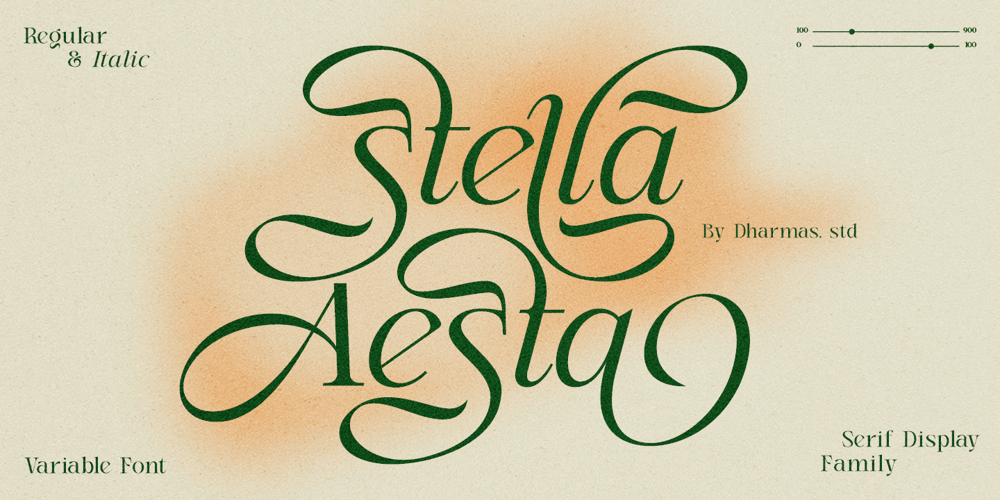
Dh Stella Aesta Font Family was designed by Ahmad Jamaludin and published by Ahmad Jamaludin. Dh Stella Aesta contains 10 styles and family package options. Introducing Stella Aesta – Butterfly Swash Display FamilyStella Aesta is an elegant serif font family featuring beautiful swashes that resemble butterfly wings, With its refined curves and delicate details, this font family is perfect for designs that need a timeless and enchanting feel.Available in Regular and Italic versions across 5 weights (Light, Regular, Medium, Semi Bold, and Bold), Stella Aesta offers a total of 10 fonts for versatile use. The Italic version comes with over 157 beautiful swashes and unique ligatures, making it ideal for creating stunning logos, quotes, blog posts, branding projects, wedding invitations, and more.With its butterfly-like swashes and timeless elegance, Stella Aesta will add a magical touch to your next design project.What you get: Stella Aesta Main Files Regular and Italic (Butterfly Style) 5 Weights: Light, Regular, Medium, Semi Bold, Bold 157+ Unique Alternates and Ligatures Instructions how to use in any programs Letters, numbers, symbols, and punctuation Accessible in Adobe Illustrator, Adobe Photoshop, Microsoft Word, and even Canva! PUA Encoded Characters, fully accessible without additional design software Language Support: Danish, English, Estonian, Filipino, Finnish, French, Friulian, Galician, German, Gusii, Indonesian, Irish, Italian, Luxembourgish, Norwegian Bokmål, Norwegian Nynorsk, Nyankole, Oromo, Portuguese, Romansh, Rombo, Spanish, Swedish, Swiss-German, Uzbek (Latin)If you need a custom license or have questions, please visit our website: www.dharmasstudio.com and come and say hello over on Instagram! https://www.instagram.com/dharmas_studioHave a great day!Dharmas Studio